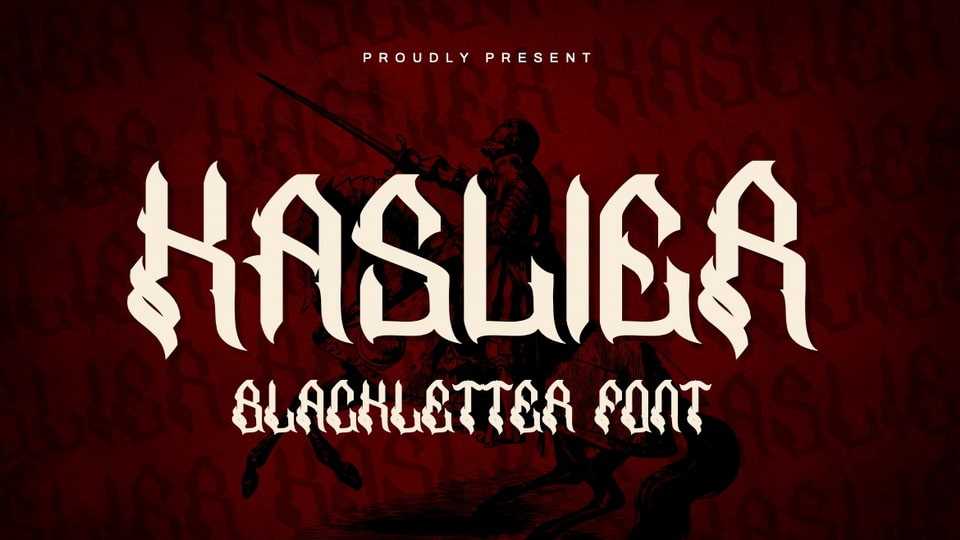
Download Kaslier font, a bold and commanding blackletter typeface with a modern twist, its sharp angles, heavy strokes, and distinctive letterforms.
Designer: Dhabee Studio